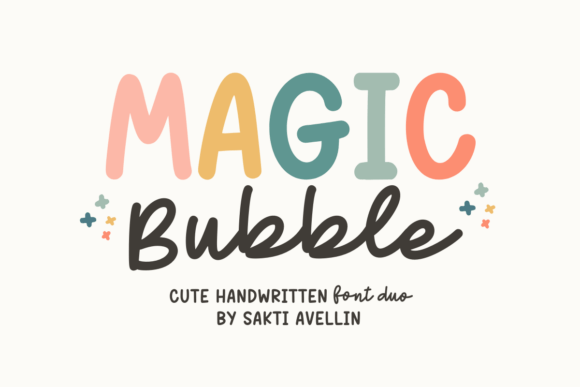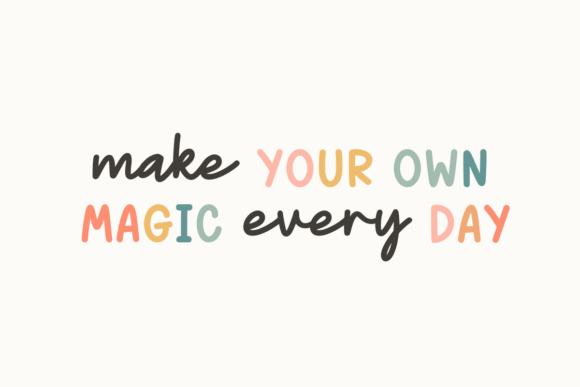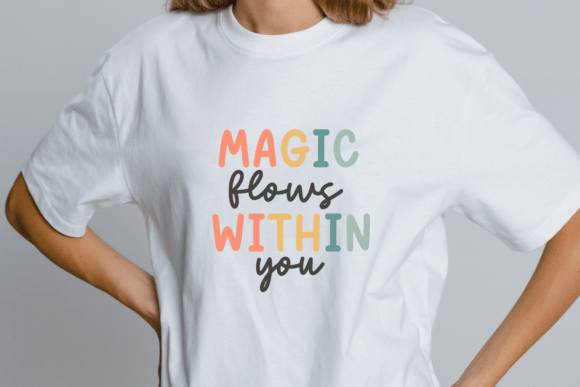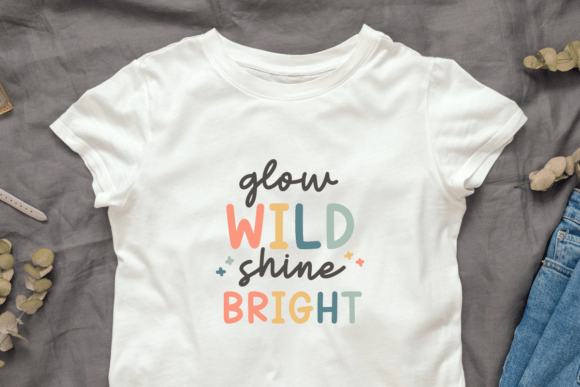
Magic Bubble Font
About the Magic Bubble Font
Get ready to be inspired by Magic Bubble Font, a fresh and dynamic typeface for modern creators. Immerse yourself in the delightful realm of typography with the Magic Bubble font! Handcrafted with immense care, this dual-character font boasts a charming script along with an adorable monoline design. Perfectly designed to elevate everyday items like t-shirts, mugs and even birthday cards, Magic Bubble transforms ordinary into extraordinary!
The font’s distinctive aesthetic also makes it the superb choice for quotes, wall art, or posters, turning simple text into striking statements. Dance your way through important life events, from weddings to branding and merchandising, with this versatile font that always leaves an unforgettable impression. With Magic Bubble, your projects won’t just speak—they’ll sing!
Magic Bubble Font Usage Examples
Magic Bubble Font Example